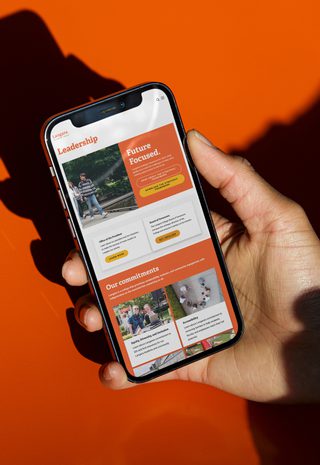
Language extension_Font Modification]
Langara – the house of learning
Langara College (Vancouver, B.C. Canada), in collaboration with the design agency Twice Brand and the Musqueam people of Canada First Nations, commissioned TypeTogether to extend Adelle to support Halkomelem.
Adelle Regular with additional glyphs (red) to support the Halkomelem language.
Adelle Semibold with additional glyphs (red) to support the Halkomelem language.
Background
Welcoming more than 21,000 students annually, the Langara College campus is situated in Musqueam — one of the indigenous unceded territories of Canada and which used to be a village. In appreciation of the the strong ties between the college and the Musqueam people, the name snəw̓eyəɬ leləm̓, which means ‘house of teaching’, was given to Langara in an official tribal naming ceremony.
Their language, Halkomelem, is a combination of three related dialects spoken on Vancouver Island, the Lower Mainland, and parts of the Fraser Canyon by indigenous communities. Downriver Halkomelem is the dialect spoken by Musqueam, and the basis of the work done on this project.
At this occasion a refreshed brand identity, a set of guidelines, and templates was initiated to incorporate the new given name. As one of the first steps, TypeTogether developed the new logo for Langara in close collaboration with the Musqueam Language Office. This required us to design a set of special glyphs, of which the ‘looped l’ presented a particular design challenge. At a later stage the full alphabet necessary for Halkomelem was designed in two styles of Adelle for the college and the Musqueam community.
Halkomelem alphabet.
This collaboration with Langara and TypeTogether is an opportunity to share our culture and language with more people in Vancouver. It also helps to revitalize our language by giving us additional tools to share it with others.
Type is the visual expression of culture and information which helps to promote diversity, and is therefore especially important for minority languages to keep their heritage alive. The language extension for Langara was a fascinating project for us, both conceptually and from a type design point of view. We are thrilled to have contributed to this endeavour.
Sample of text setting of Halkomelem and English.